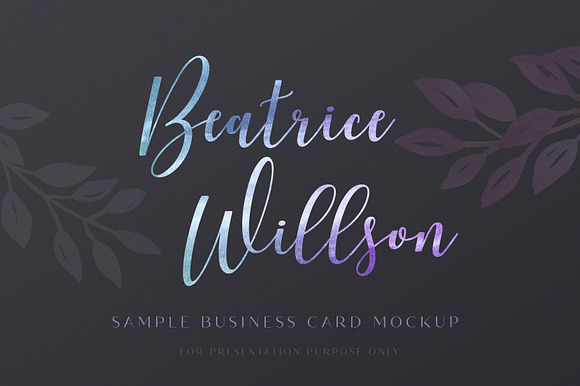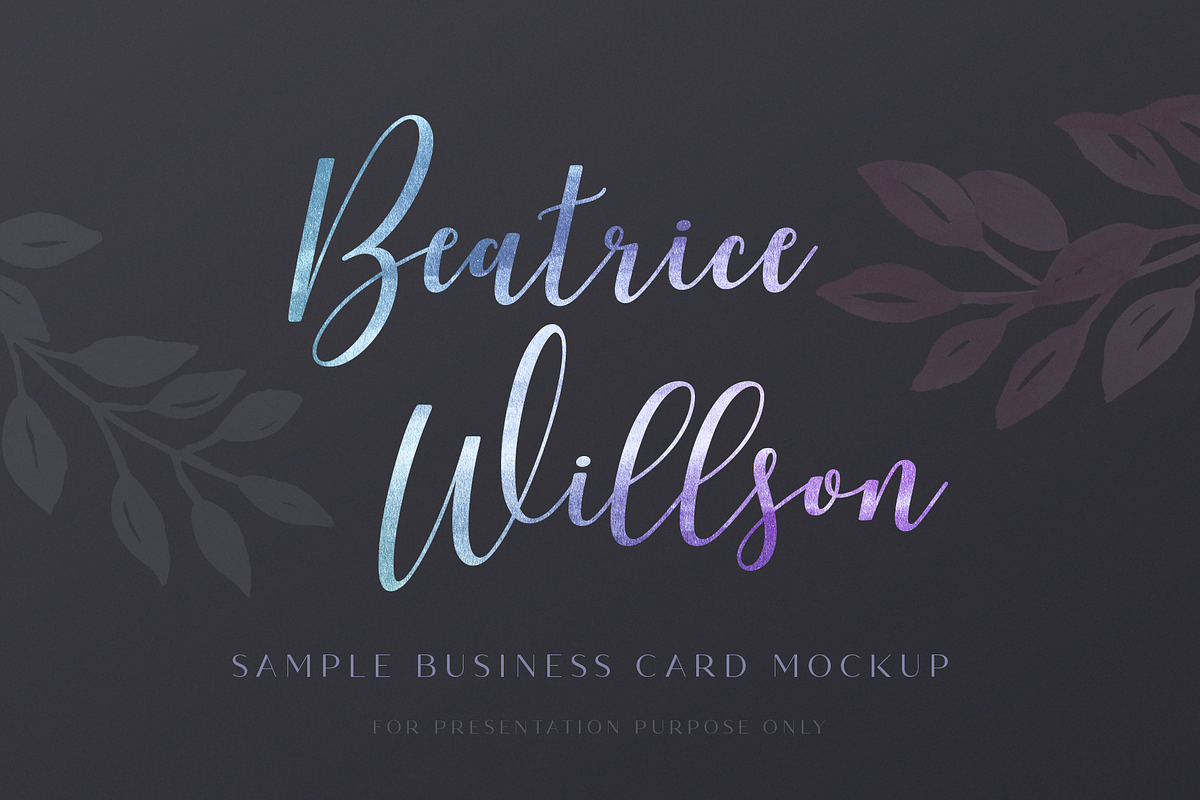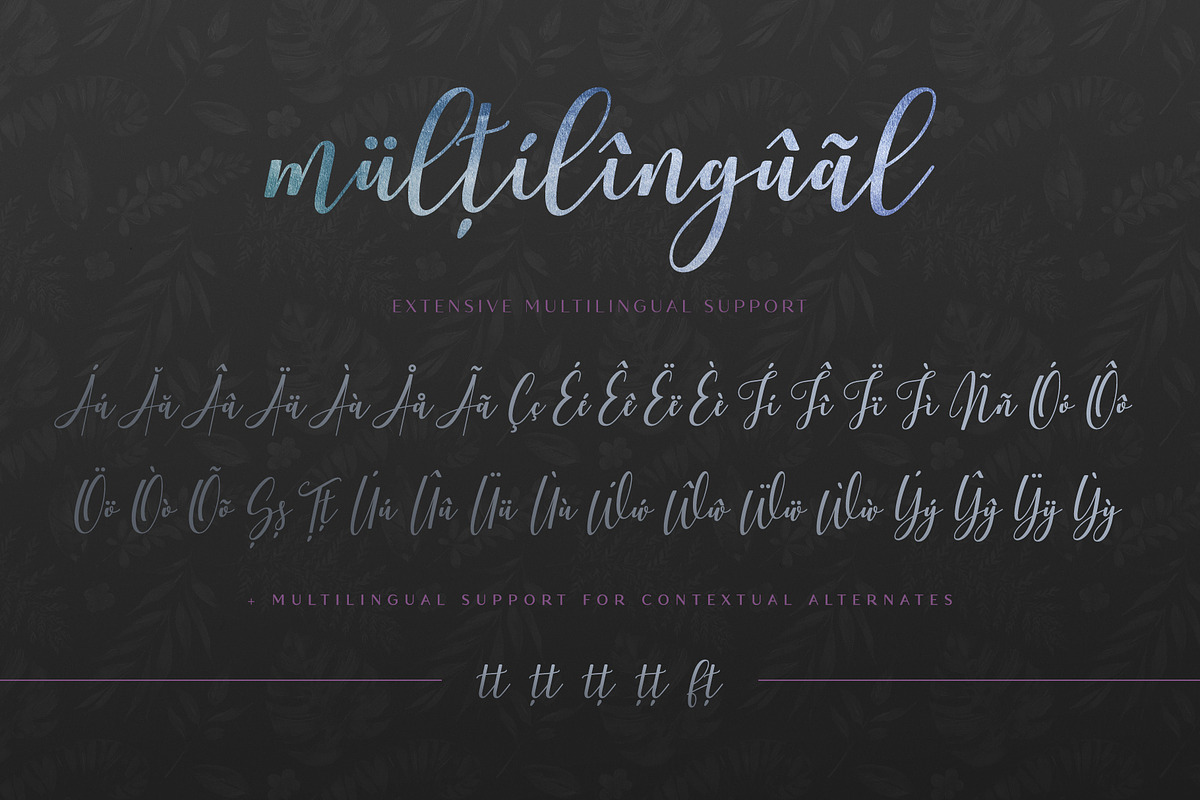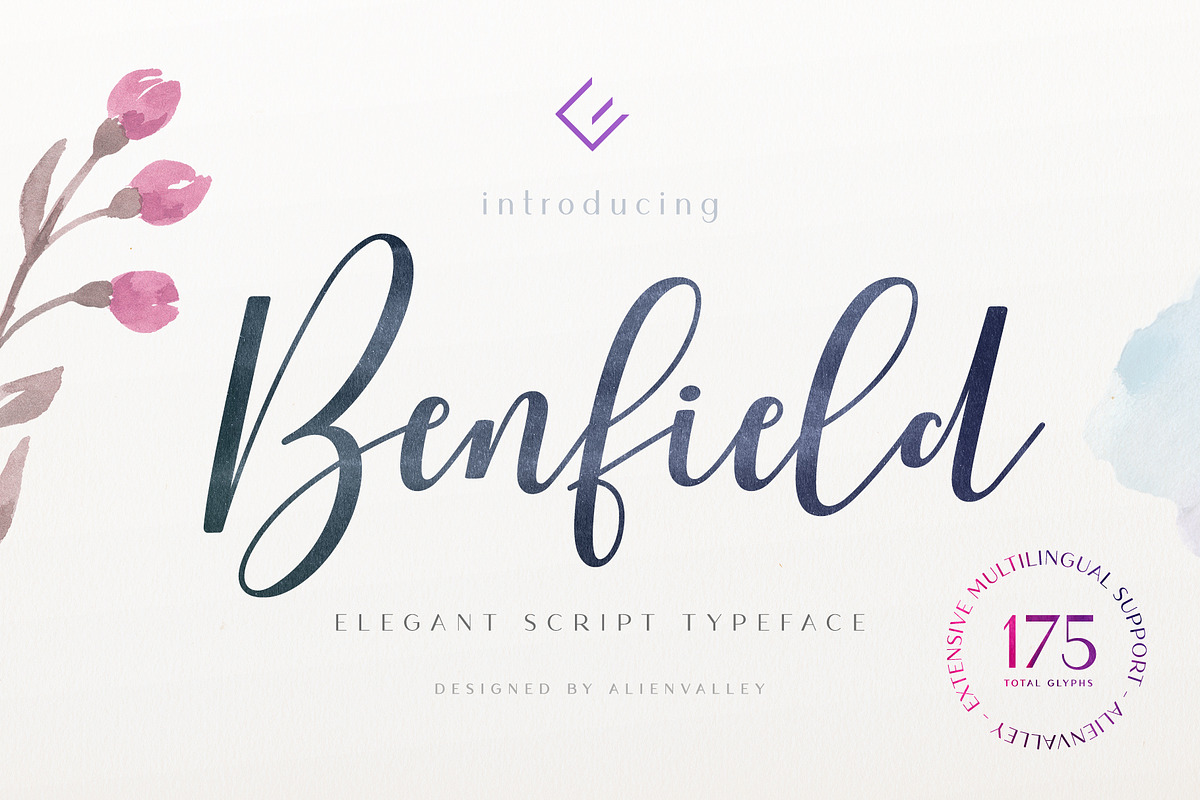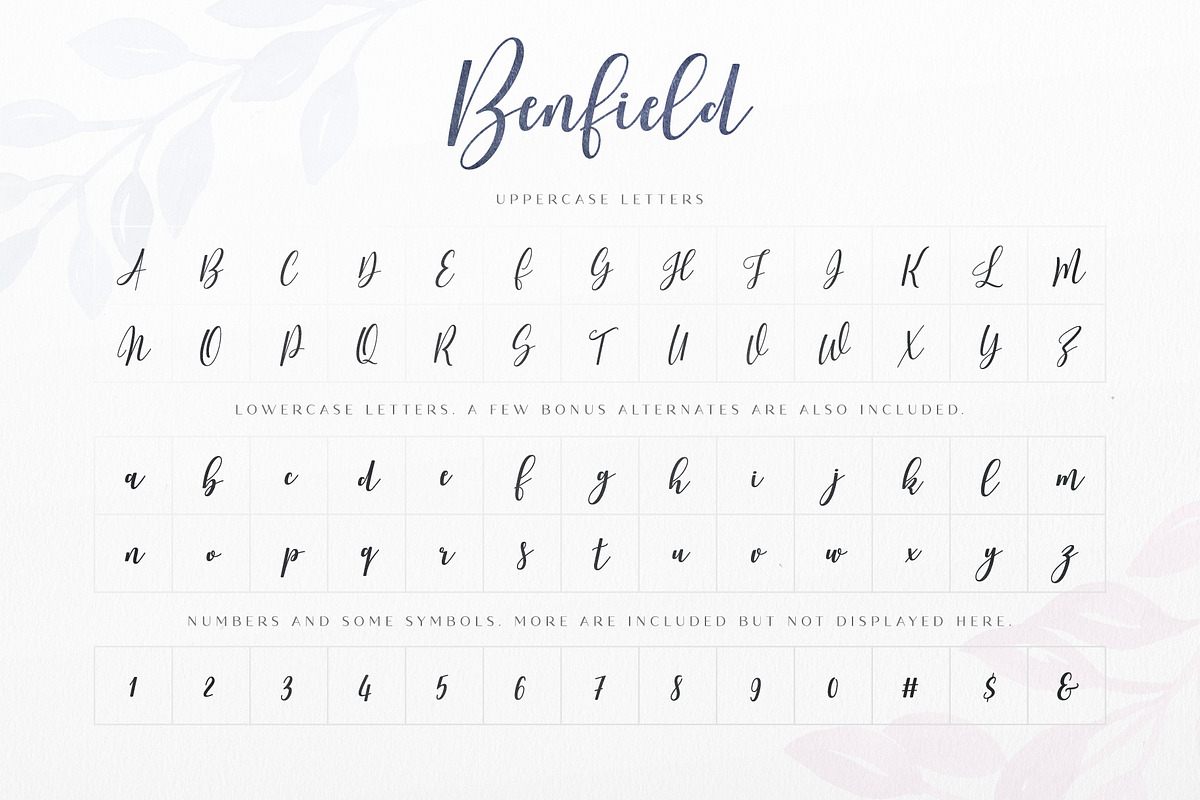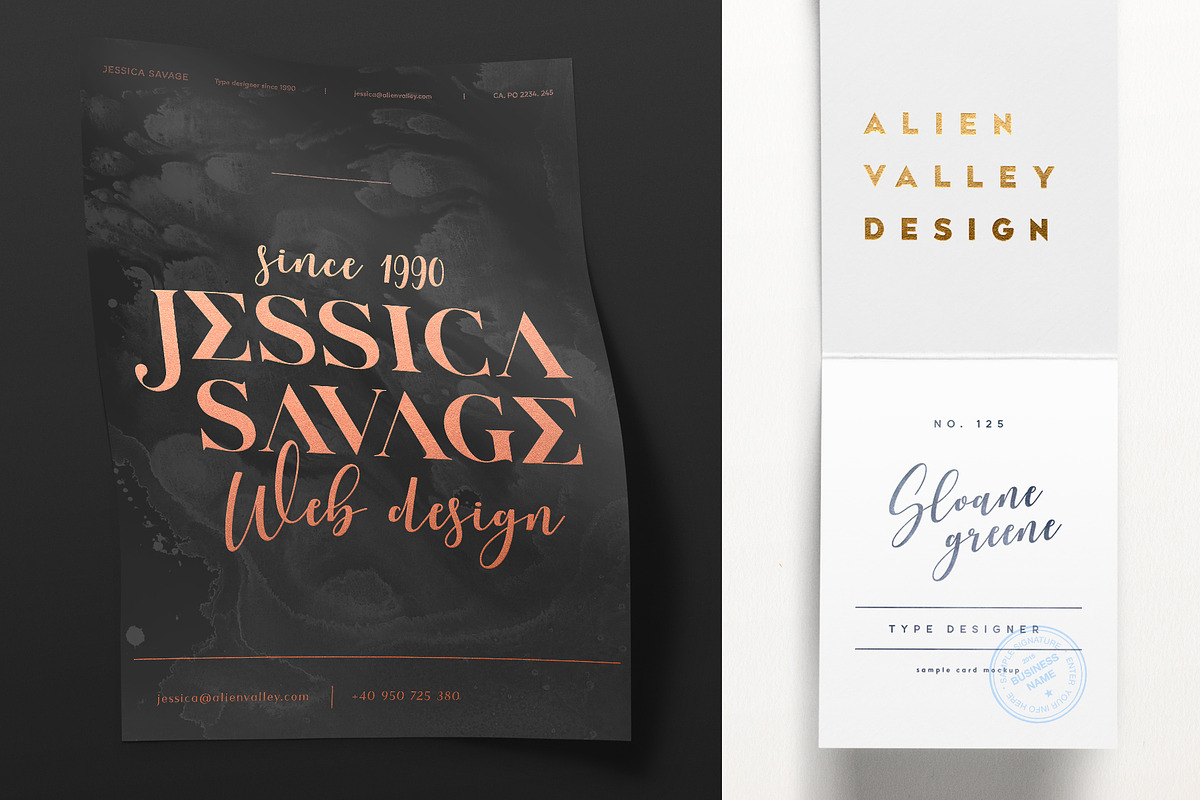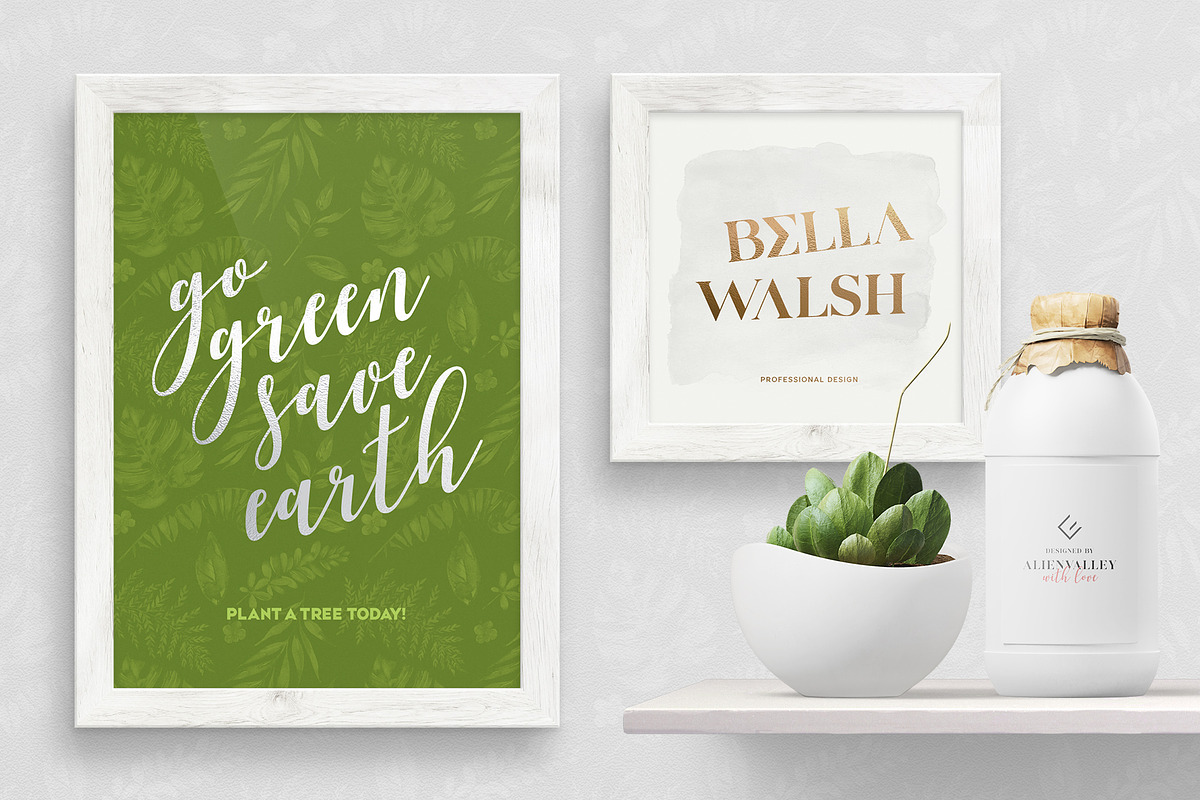
Benfield - Script Font
Introducing Benfield, a new elegant script typeface featuring extensive multilingual support. The font looks great on business cards, invitations, flyiers and more! You can also pair it with serif or sans serif fonts as shown in the preview images.
Contextual alternates
Benfield - Script Font by AlienValley fits naturally into Branding, posters, packaging, typography.